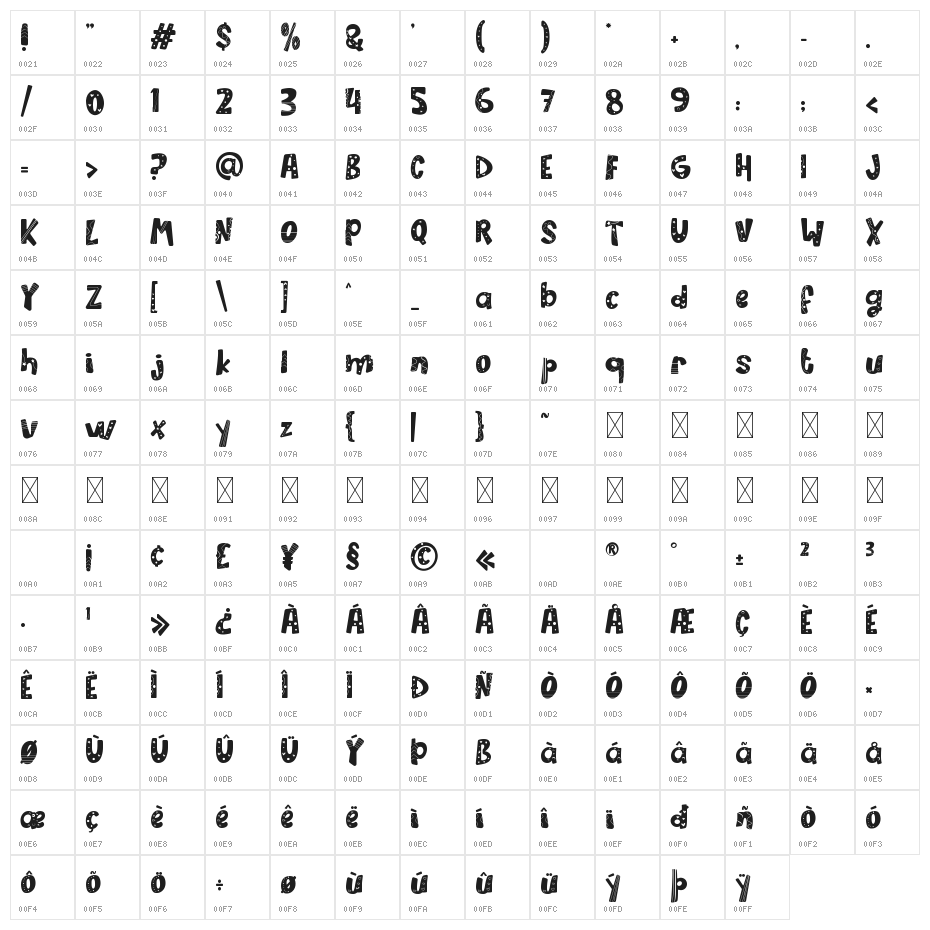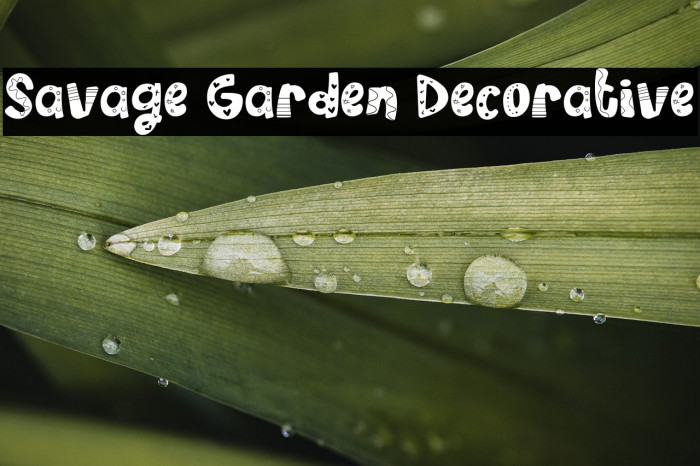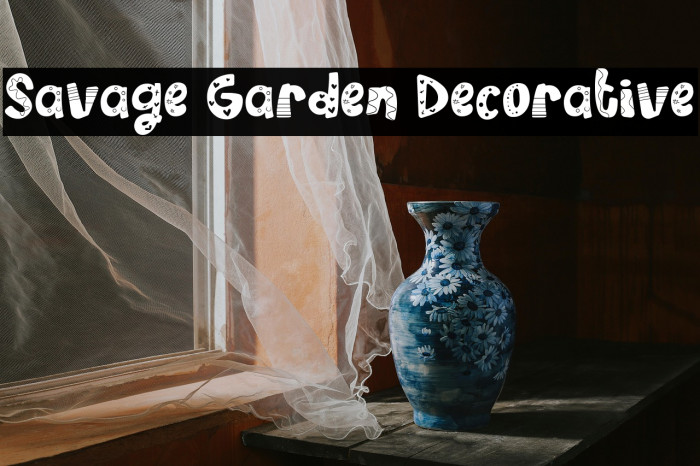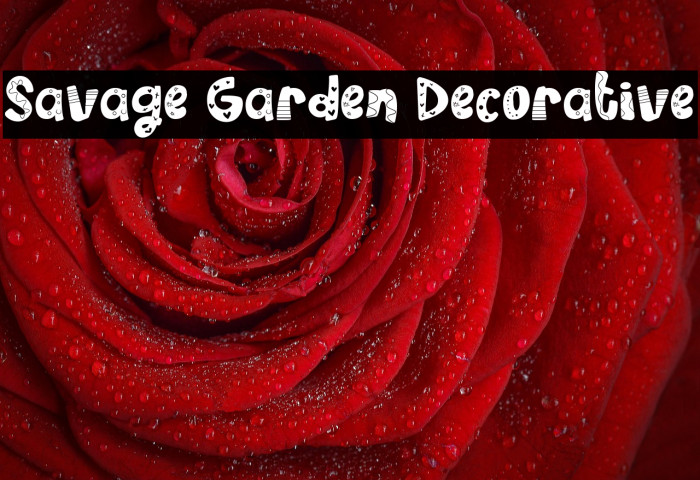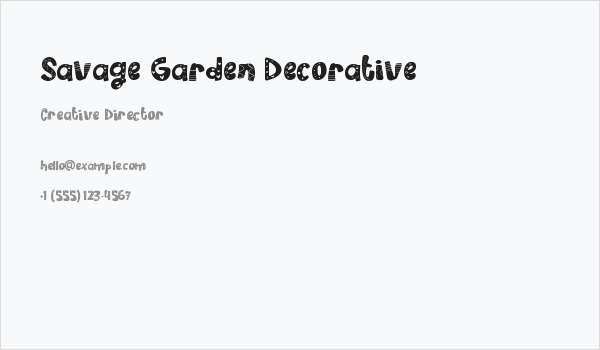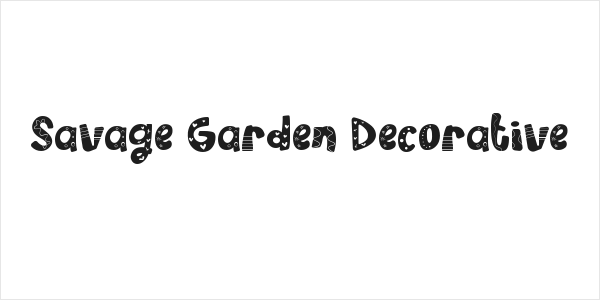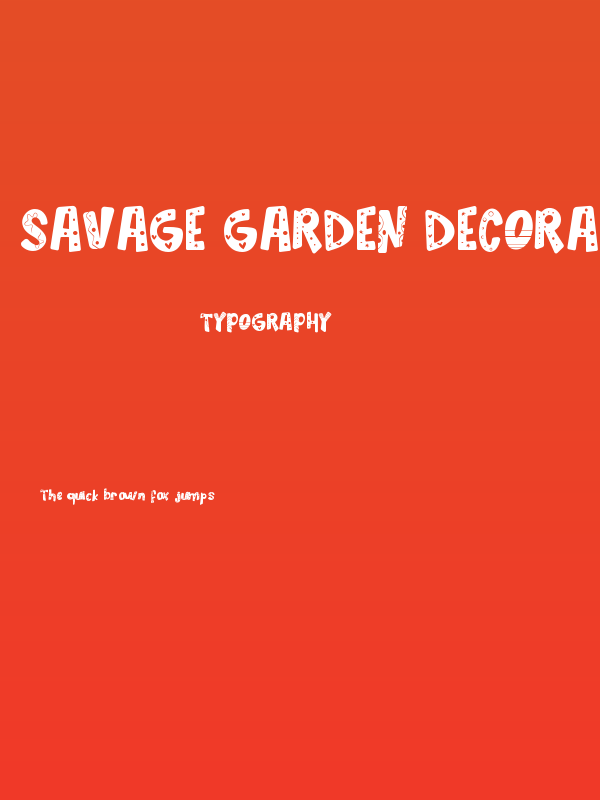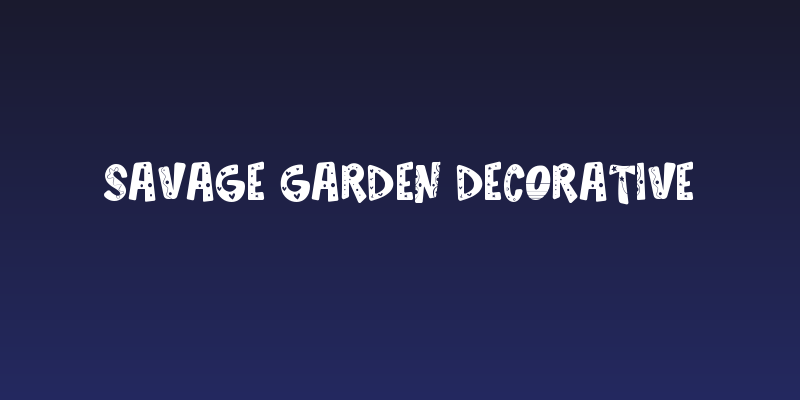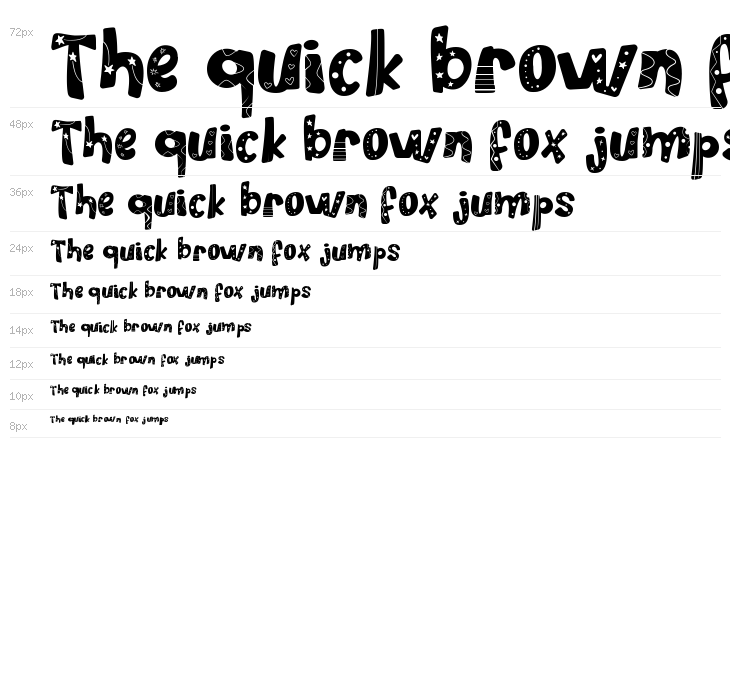
Savage Garden Decorative Font
Savage Garden Decorative Description
This playful and whimsical font features a decorative style with unique patterns and embellishments within each character. The letters are bold and eye-catching, incorporating elements like stars, stripes, and dots that give it a lively and fun appearance. The font maintains a consistent thickness throughout, ensuring readability despite its decorative nature. Its quirky and artistic design makes it stand out, perfect for projects that require a touch of creativity and flair.
| Proposed Projects | Ideal for children's book covers, party invitations, playful branding, and creative posters. |